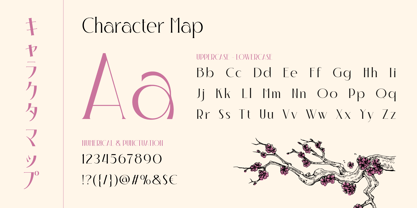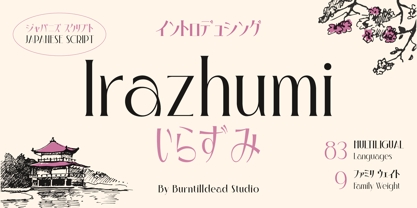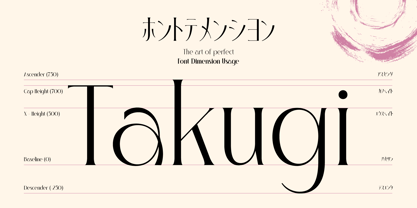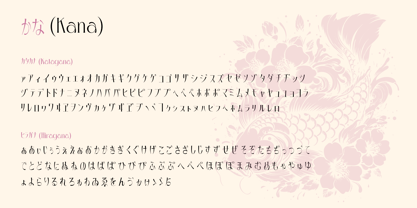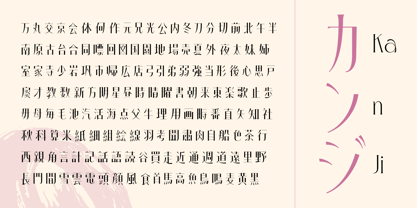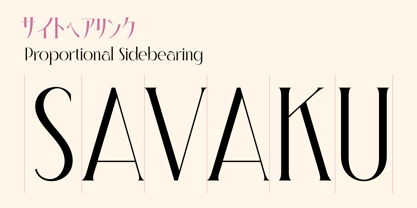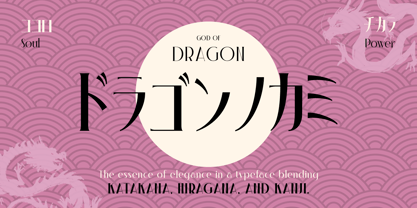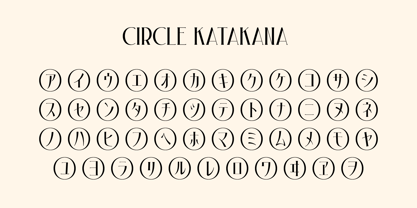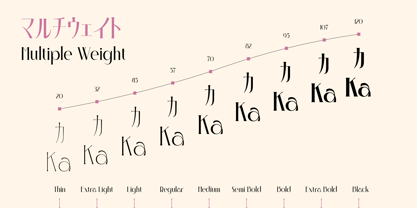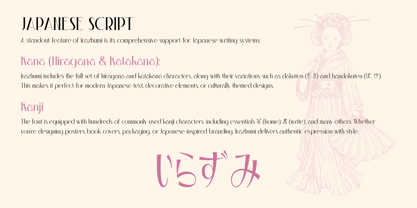
Irazhumi
by Burntilldead
The Irazhumi Font Family was designed by Eric Kurniawan and published by Burntilldead. Irazhumi contains 8 styles and family package options. More about this family
Irazhumi is a graceful serif typeface that blends modern editorial aesthetics with delicate Japanese flair. Crafted with precision, this font family features both Latin and full Japanese scripts—including Hiragana, Katakana, and commonly used Kanji characters—making it a rare gem for multilingual design.
Its tall x-height, sharp contrast, and sculpted curves evoke a sense of refinement and authority, while the flowing Japanese strokes add a poetic, organic rhythm. Whether you're working on magazine layouts, book covers, branding for luxury products, or cultural designs, Irazhumi delivers a uniquely elegant voice that’s both artistic and functional.
Comes in 9 versatile weights, from Thin to Black, allowing you to explore dynamic typography combinations across print and digital projects.
Irazhumi perfect for editorial layouts, magazine headlines, book cover, cultural publications, japanese branding, packaging, poster, UI display, minimalist luxe branding, and so on.
Features:
• Uppercase & Lowercase
• Number
• Punctuation
• Japanese Script (Hiaraga, Katakana & Kanji)
• Multilingual